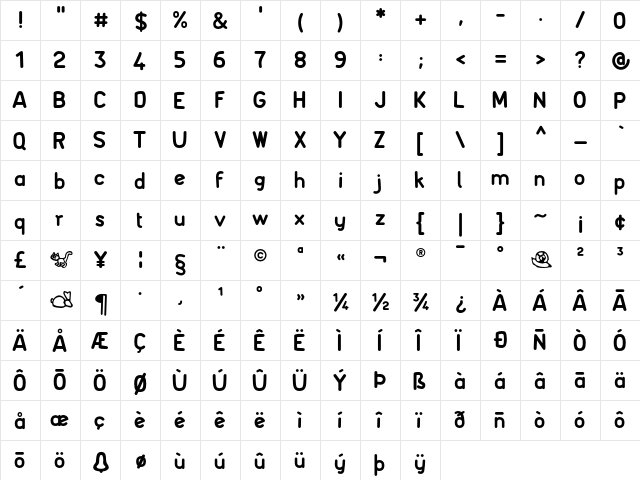
FontSoupGerman Boiled
Design Context for FontSoupGerman Typeface
FontSoupGerman is a composed and adaptable typeface that performs quietly and consistently across a wide range of design contexts.
Pro Tip: Pair FontSoupGerman with a font of contrasting weight or personality to build a more expressive typographic hierarchy.